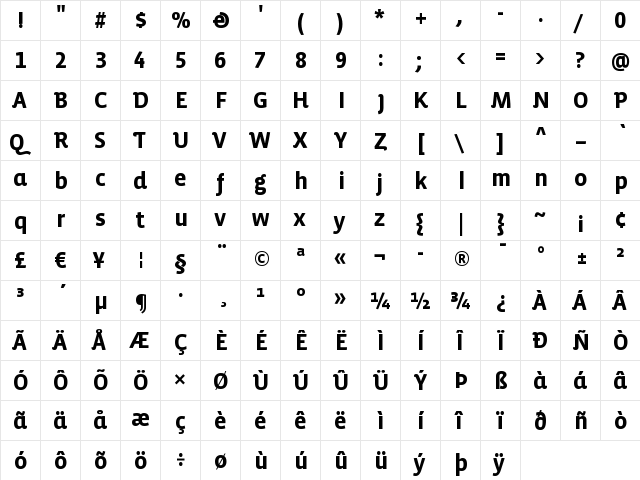
VistaSansAltBold Regular
| Foundry | Xavier Dupre |
| Designer | Xavier Dupre |
Design Context for VistaSansAltBold Typeface
VistaSansAltBold takes a measured approach to typography — its balanced proportions and neutral character make it a reliable workhorse for both digital and print work. Its bold stroke weight gives it real presence on the page.